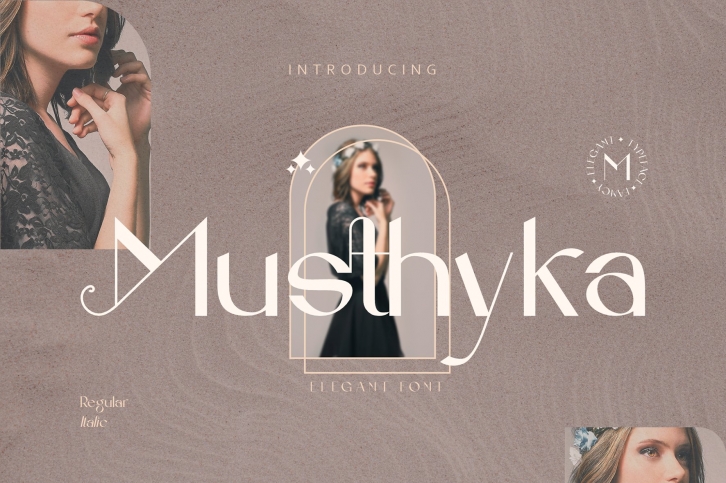
Musthyka is a great font that was designed by RT Studio. Imagine the amount of combinations you can create using this font! The archive is 14.14 MB and it was released on August 2, 2021. Musthyka looks beautiful on wedding invitations, greeting cards, logos, posters, labels, t-shirt designs, logos, business cards and is perfect for use in ink or watercolor works, fashion, magazines, packaging and food menus, children's books and more!